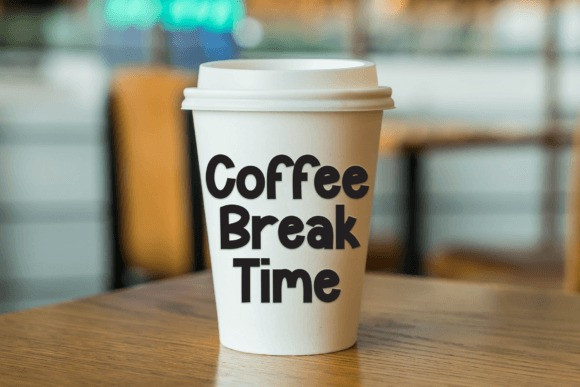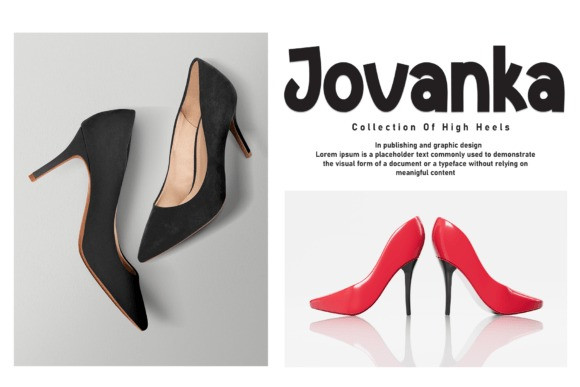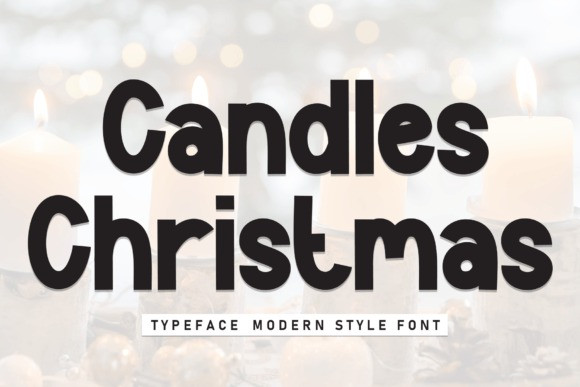
Candles Christmas Font
Candles Christmas Font is a charming modern handwritten font that captures the festive spirit with a touch of whimsy. Its graceful strokes and playful curves add a warm and personal feel to any project, making it perfect for holiday greetings, cards, and decorations. Spread the joy of the season with the cozy and inviting vibe of Candles Christmas.